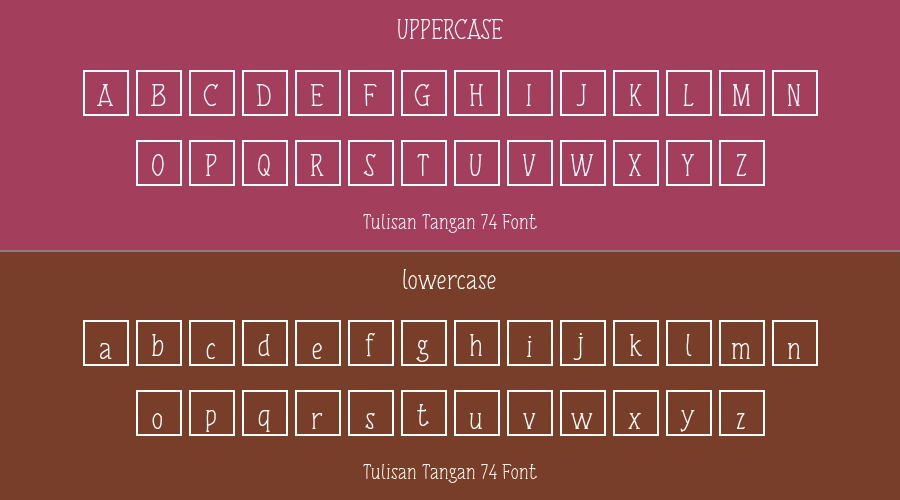
About Tulisan Tangan 74 Font
Tulisan Tangan 74 Font stands out for its distinctive combination of ligatures and consistency. Ideal for digital signage, it provides the reliability and technical mastery that professional projects demand. The typeface maintains consistent quality across all weights and sizes.
Key features include refined elegant curves and practical decorative sets, enhancing typographic expression. In display applications applications, Tulisan Tangan 74 Font demonstrates exceptional OCR compatibility. The apex design and character contribute to its distinctive character and professional appeal.